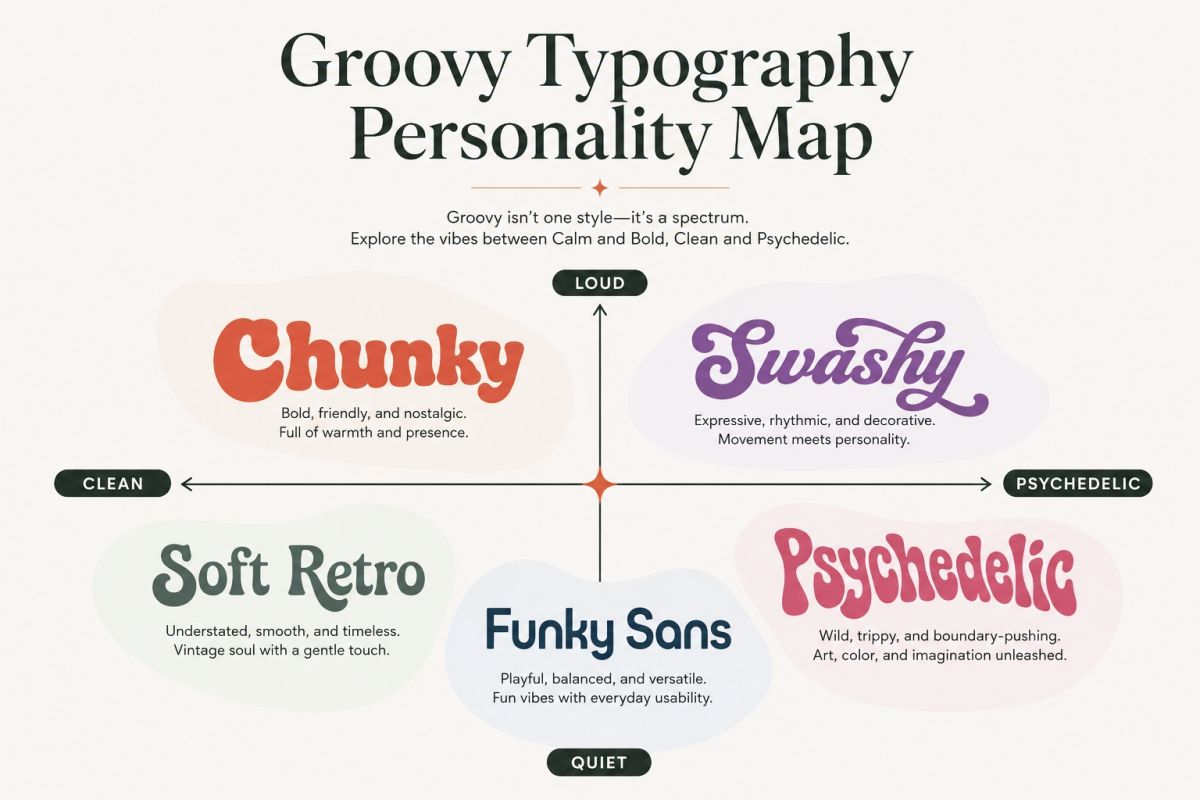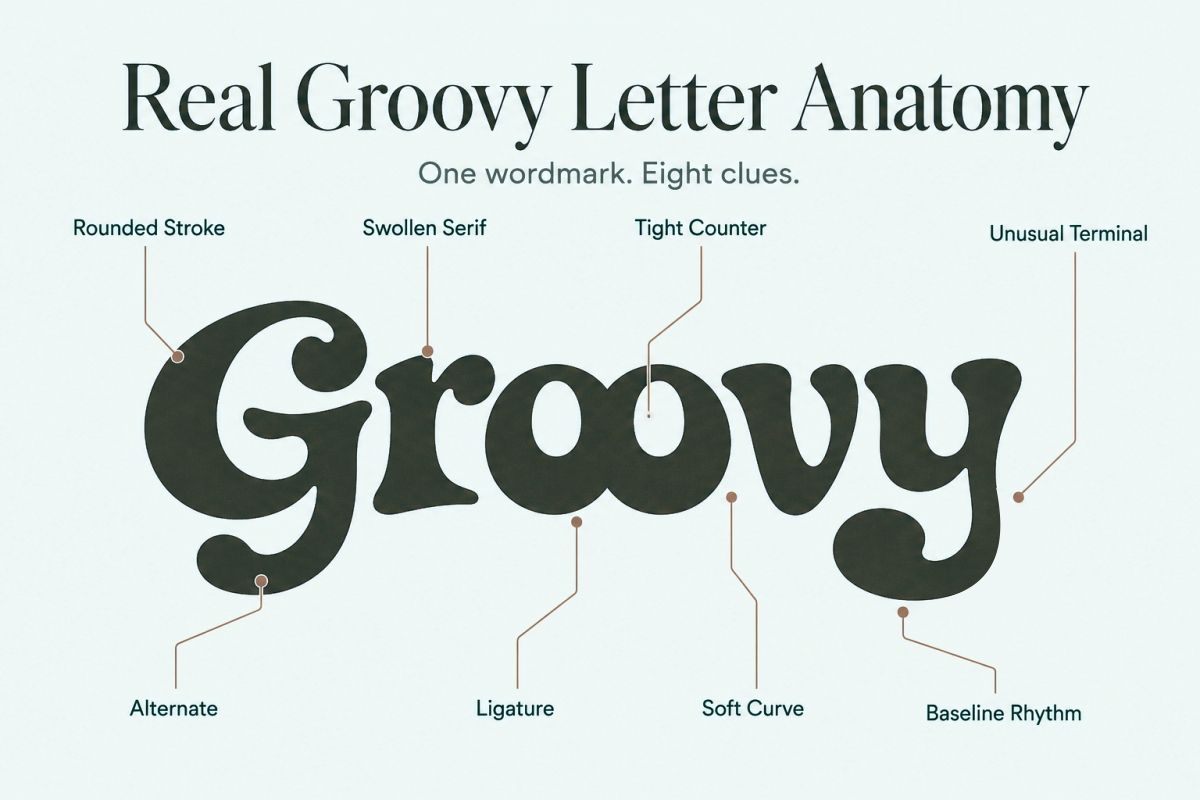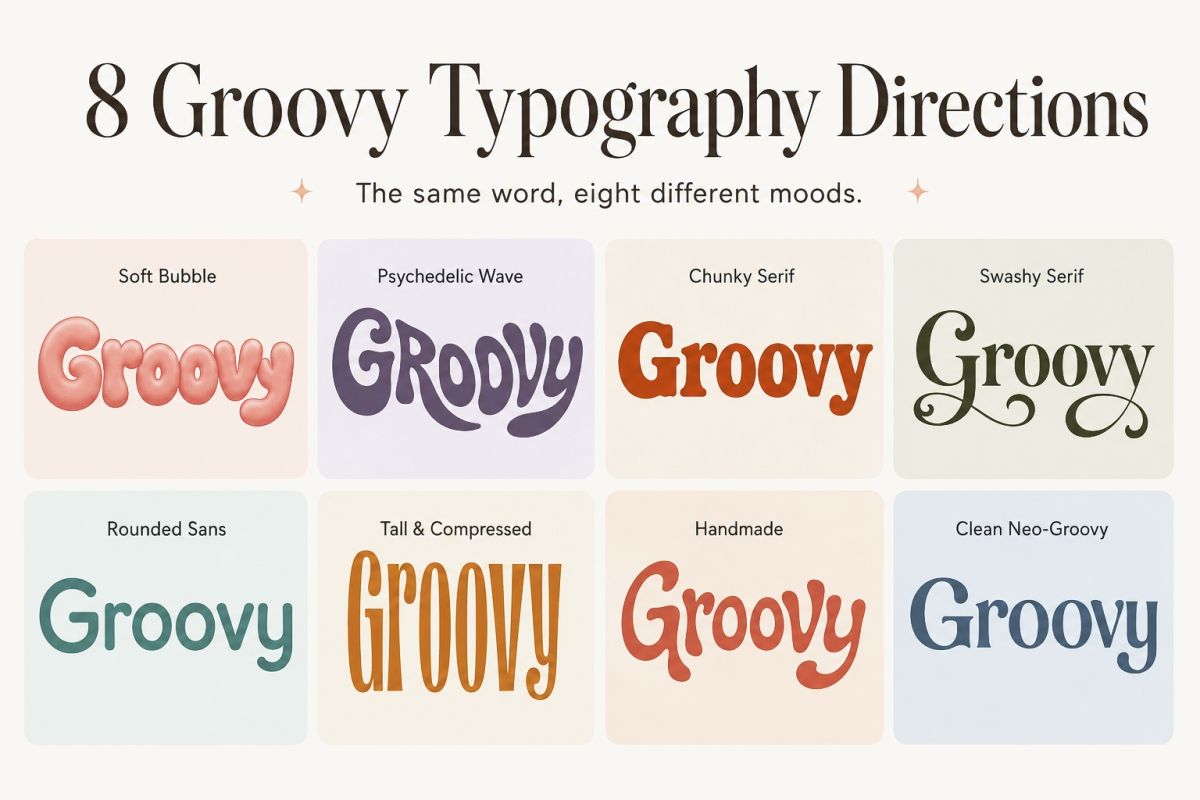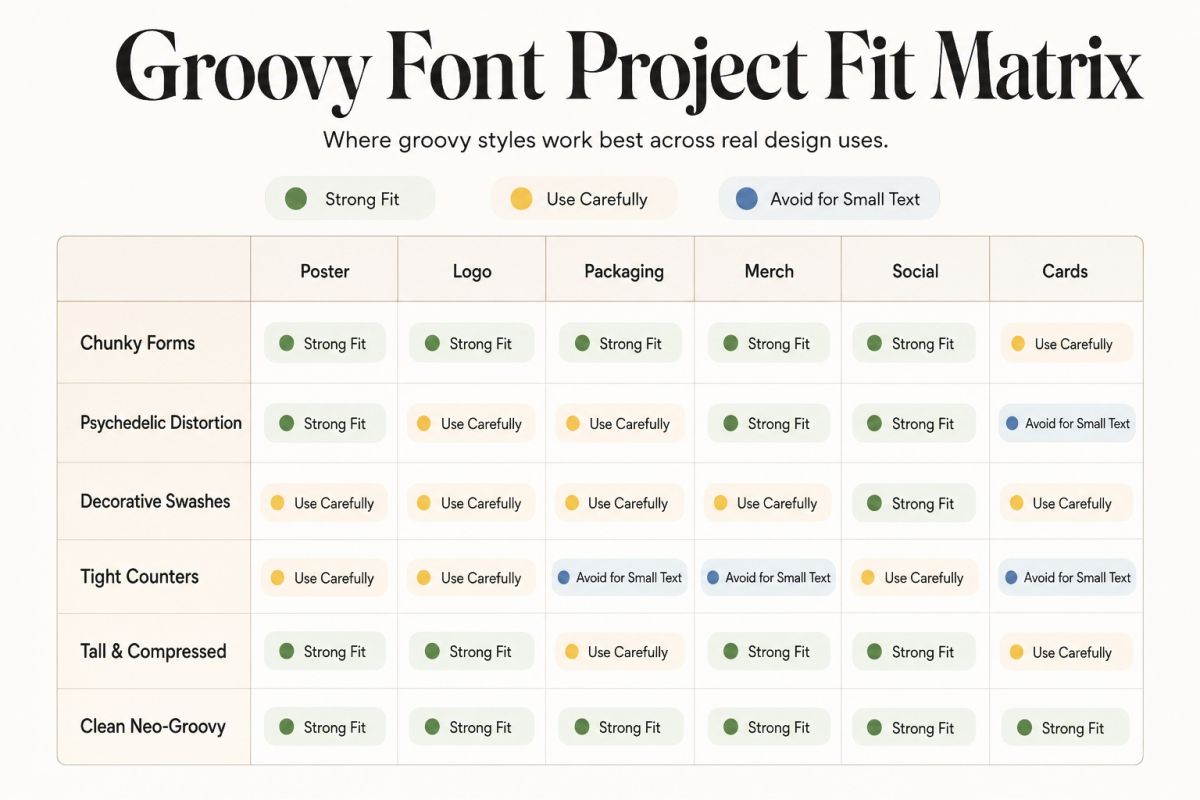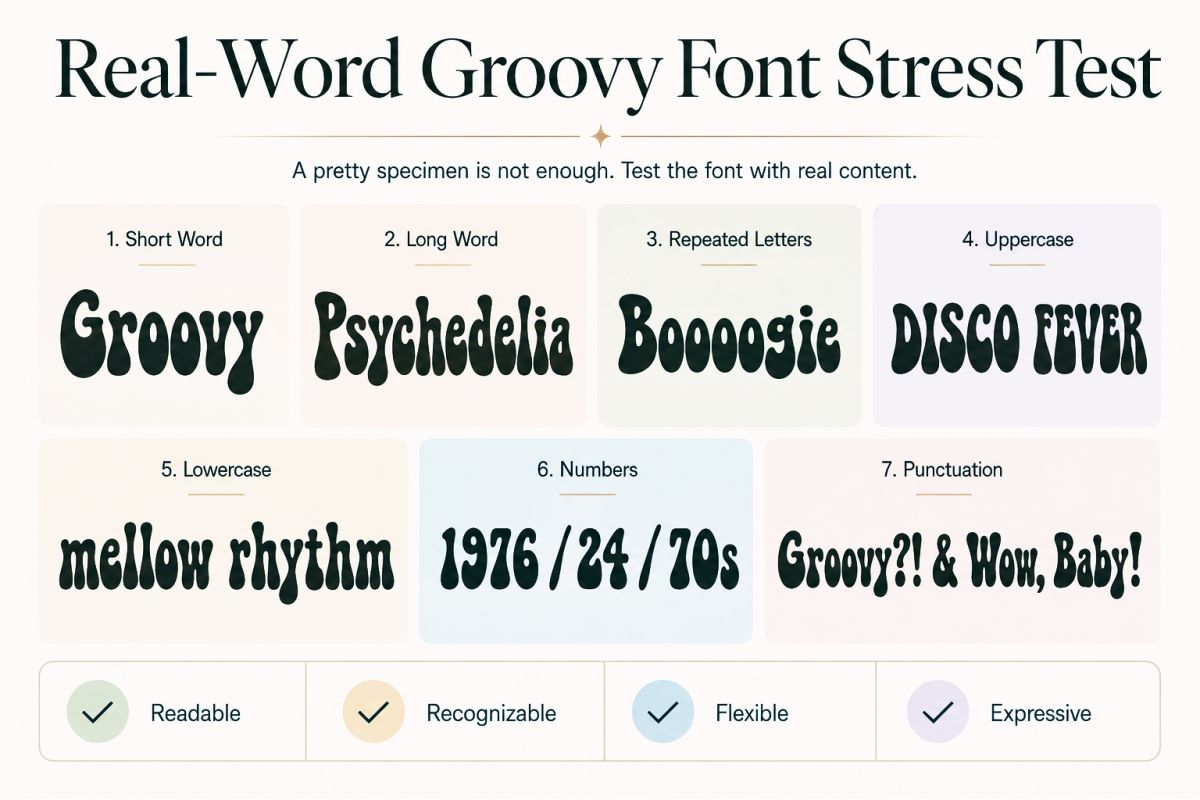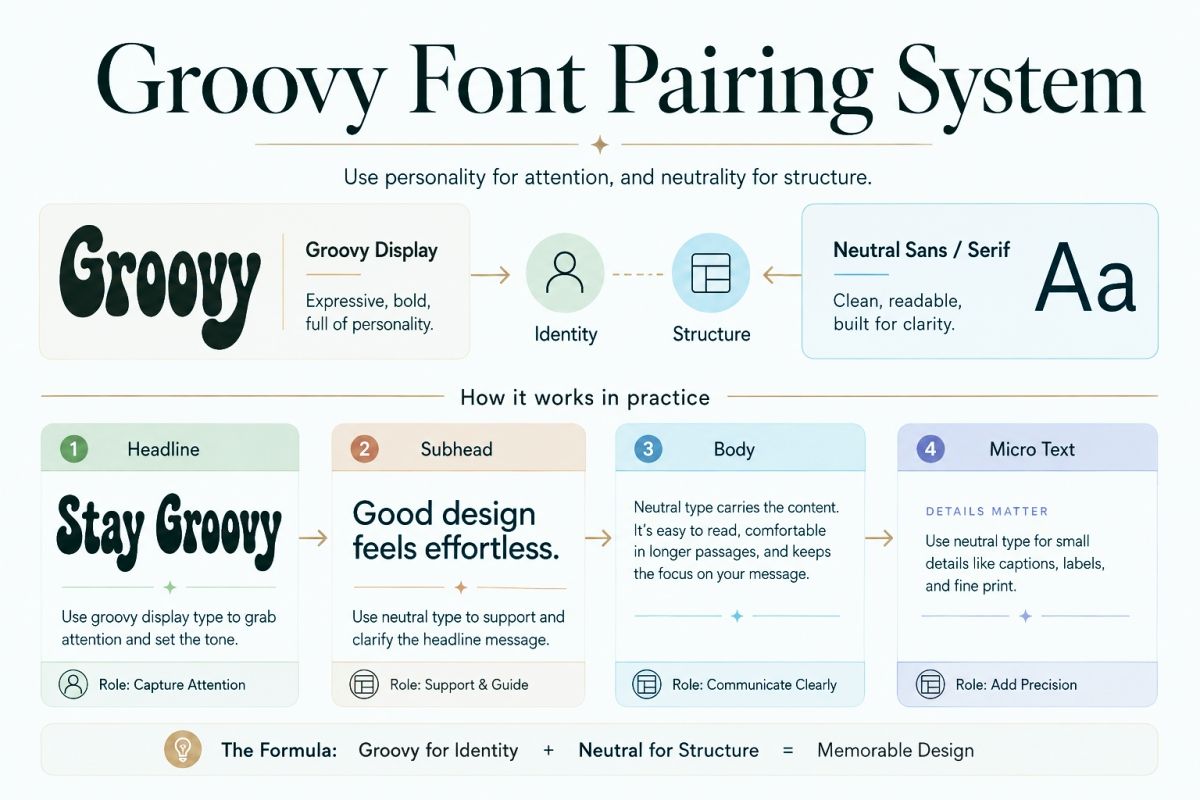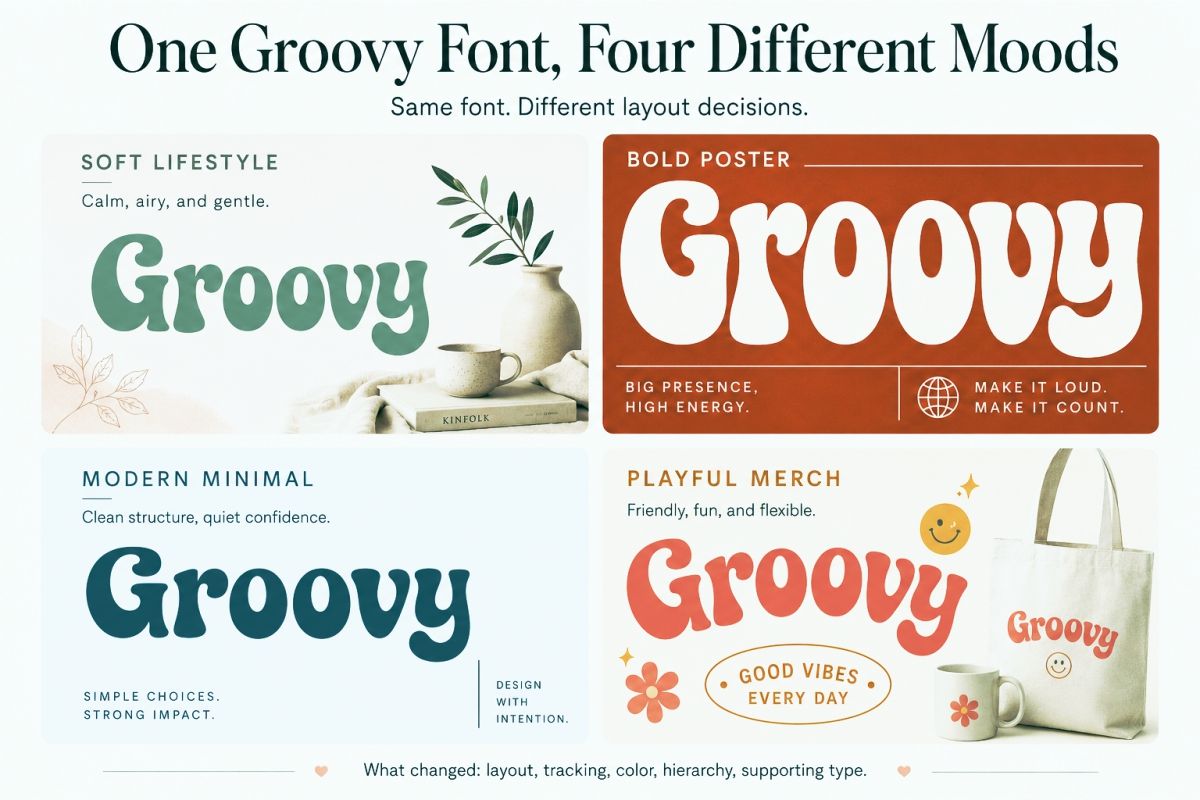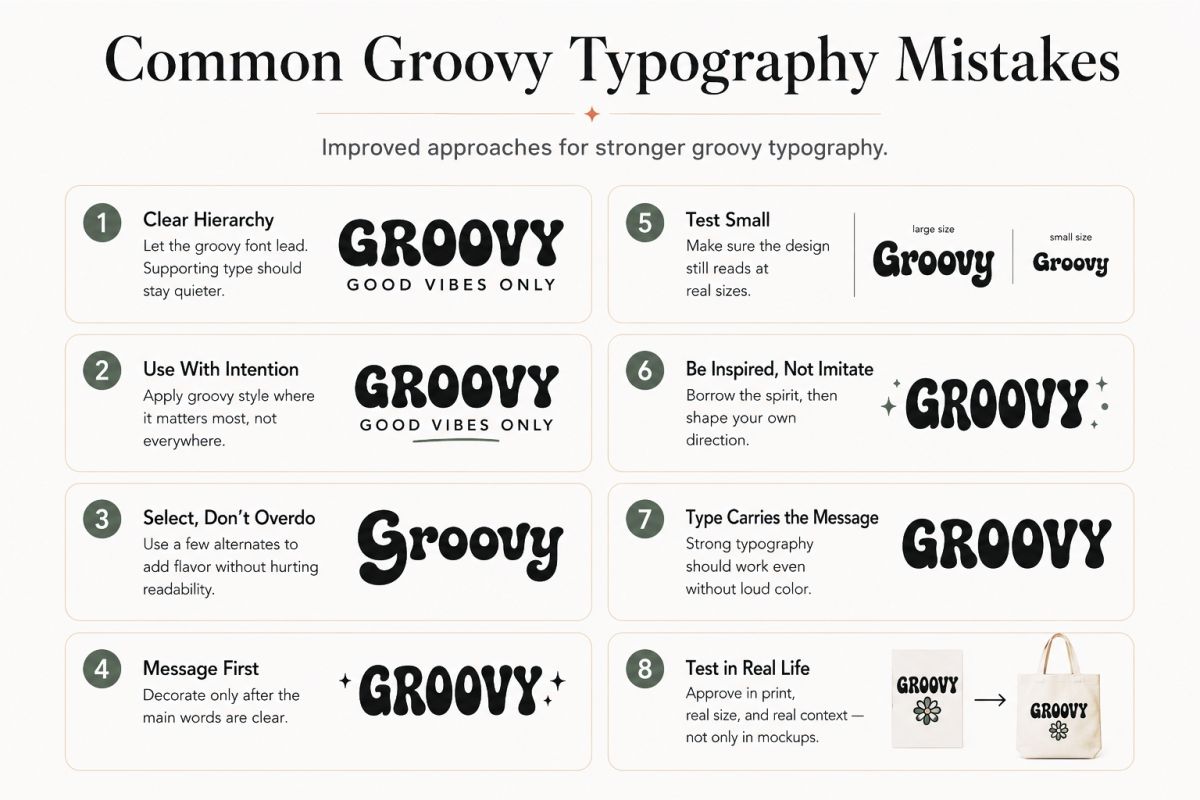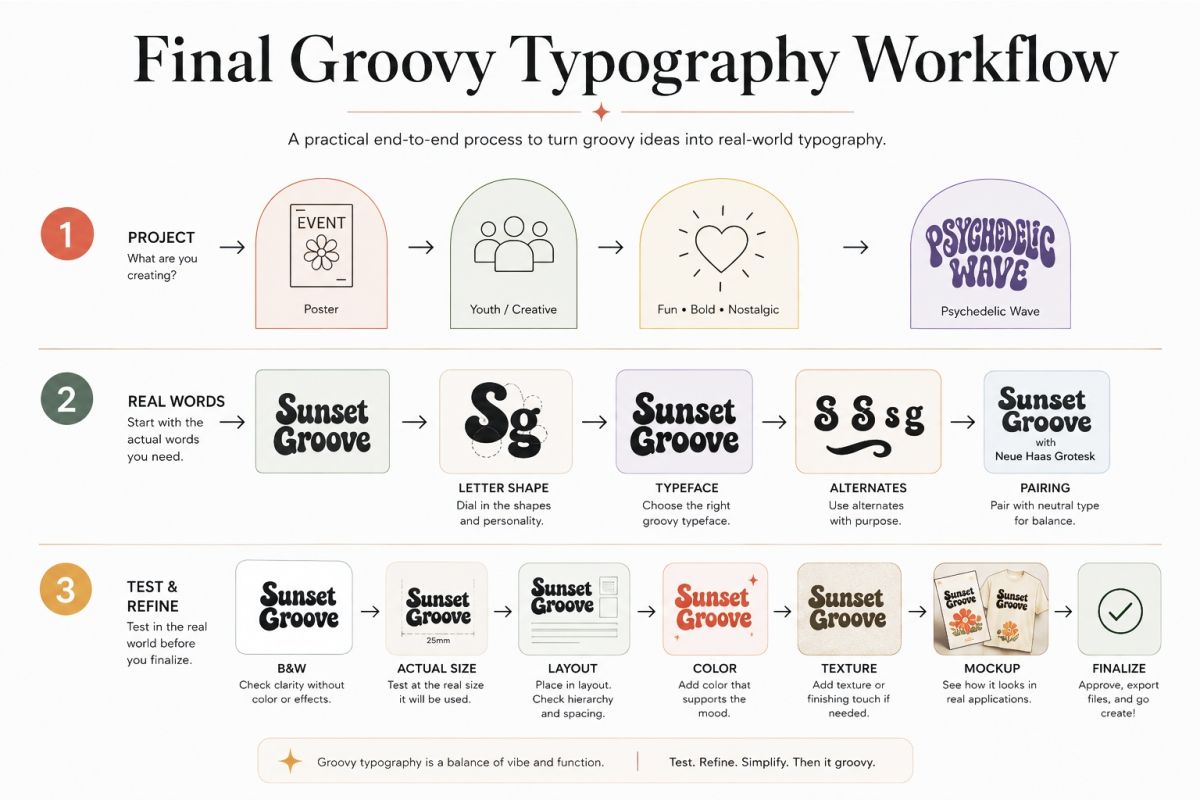
Groovy Font Ideas for Fun, Retro, and Playful Design Projects
Groovy typography is easy to recognize.
It feels soft. Loud. Curvy. Sometimes strange.
But finding good groovy font ideas is not really about searching for the most exaggerated retro font you can find.
That usually gives you a style.
Not necessarily a good design.
I prefer to think of groovy typography as a shape system. The font creates a certain rhythm before you even add color, illustration, texture, or nostalgia.
A rounded serif can feel cheerful.
A wide psychedelic display font can feel rebellious.
A chunky typeface with tight counters can look playful at poster size but become messy on a small label.
That difference matters.
In this guide, I’ll show you how to choose groovy fonts by personality, letterform, project type, and real-world use. You’ll also see how to make retro typography feel fresh rather than like a direct copy of the 1970s.
Groovy Typography Personality Map.
What Actually Makes a Font Feel Groovy?
There is no single formula.
And that is useful.
You do not need bell-bottom-shaped letters, rainbow gradients, and wavy baselines in every design.
Groovy typography can come from several visual characteristics:
• swollen or rounded strokes
• exaggerated curves
• soft serif shapes
• unusual terminals
• compact counters
• wide letter proportions
• playful alternates
• unexpected ligatures
• bouncing baselines
• tight display spacing
• high-contrast silhouettes
A typeface might use only two or three of these traits and still feel distinctly groovy.
That is why I would avoid treating “groovy” as one fixed font category.
Think about it as a spectrum.
At one end, you have soft retro typography that can still work for modern branding.
At the other, you have highly expressive psychedelic lettering built to dominate a poster.
Both can be groovy.
They simply do different jobs.
Start With the Emotional Job, Not the Decade
A common mistake is starting with:
“I need a 70s font.”
That is too broad.
Ask what the typography needs to feel like instead.
Do you want it to feel happy?
Weird?
Warm?
Bold?
Handmade?
Youthful?
Relaxed?
Slightly rebellious?
Those answers will narrow your font choices much faster than choosing a decade.
For example, imagine you are designing packaging for a small candy brand.
“Retro” could lead almost anywhere.
But “sweet, chunky, cheerful, and slightly nostalgic” gives you a much clearer visual target.
Now you can look for large rounded counters, soft terminals, heavy shapes, and friendly lowercase letters.
That is a useful brief.
Real Groovy Letter Anatomy.
Look at the Letters as Shapes
Groovy fonts are usually display-driven.
That means the silhouette matters.
A lot.
Before choosing one, zoom out and stop reading the word for a moment.
Look at the typography as if it were an illustration.
Does the word create an interesting overall shape?
Do some letters become awkwardly narrow?
Does one capital suddenly feel much heavier?
Are the counters still visible?
Does the rhythm break when you use repeated letters?
This matters because a font preview showing GROOVY may look fantastic while your actual project name looks completely different.
Imagine these names:
Bloom
Mellow Moon
Pepper Parade
Sunny Sunday
The Green Room
Each one creates a different combination of curves, diagonals, repeated letters, ascenders, and descenders.
Never choose a display font based only on the designer’s sample word.
Type your real words first.
8 Groovy Font Ideas Worth Exploring
Rather than collecting dozens of fonts that look almost identical, I would build your inspiration around different visual territories.
Here are eight useful directions.
1. Soft Bubble Groovy
This is probably the friendliest direction.
Look for thick strokes, rounded corners, generous curves, and soft counters.
The letters often feel inflated rather than constructed.
That makes this style useful for:
• kids’ products
• candy packaging
• cheerful posters
• stickers
• casual apparel
• social graphics
• playful logos
The trick is restraint.
A bubbly font already has personality.
You rarely need equally loud illustrations, borders, shadows, textures, and colors around it.
Give the typography room to work.
2. Psychedelic Wave Typography
This direction pushes much further.
Letters may stretch, curve, warp, connect, or feel almost liquid.